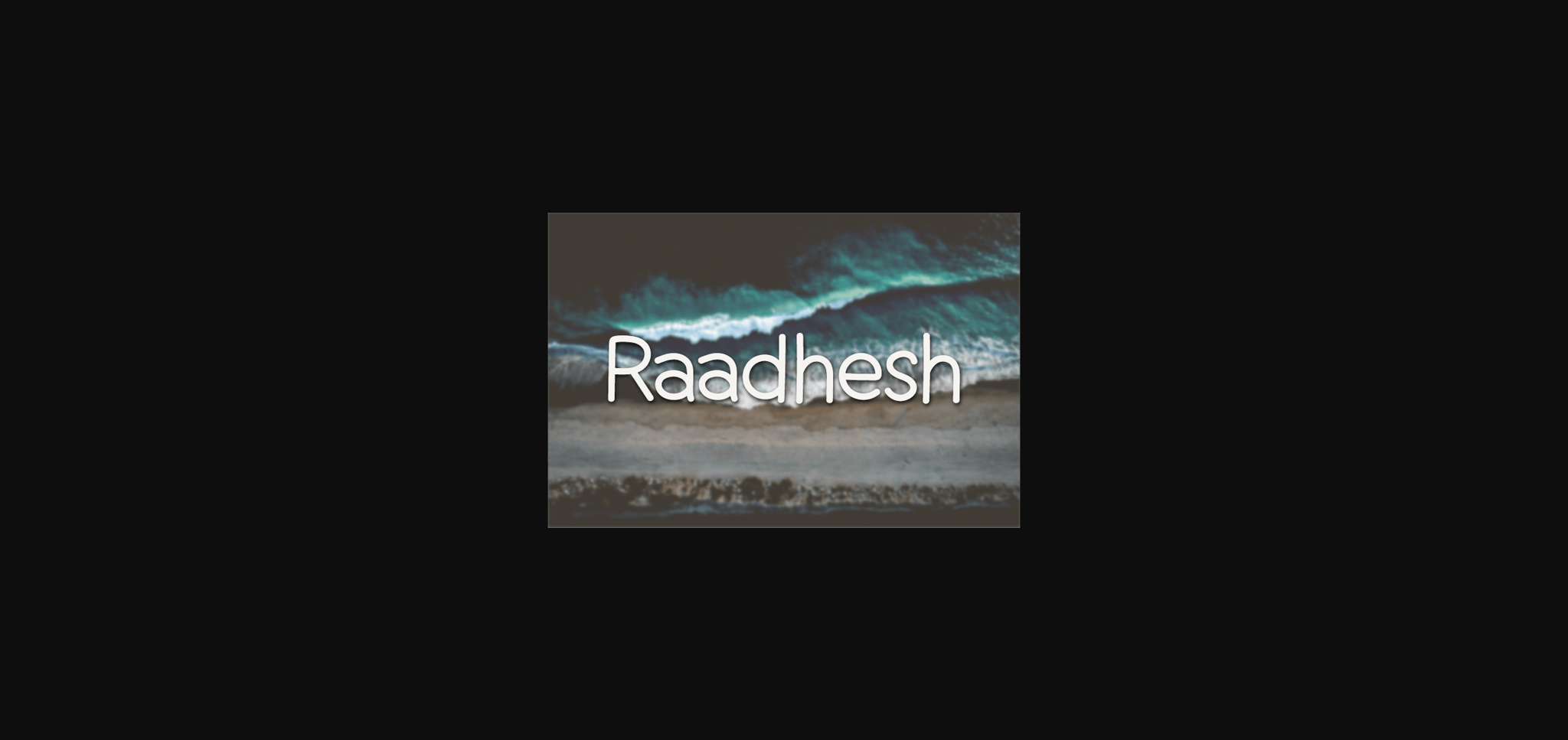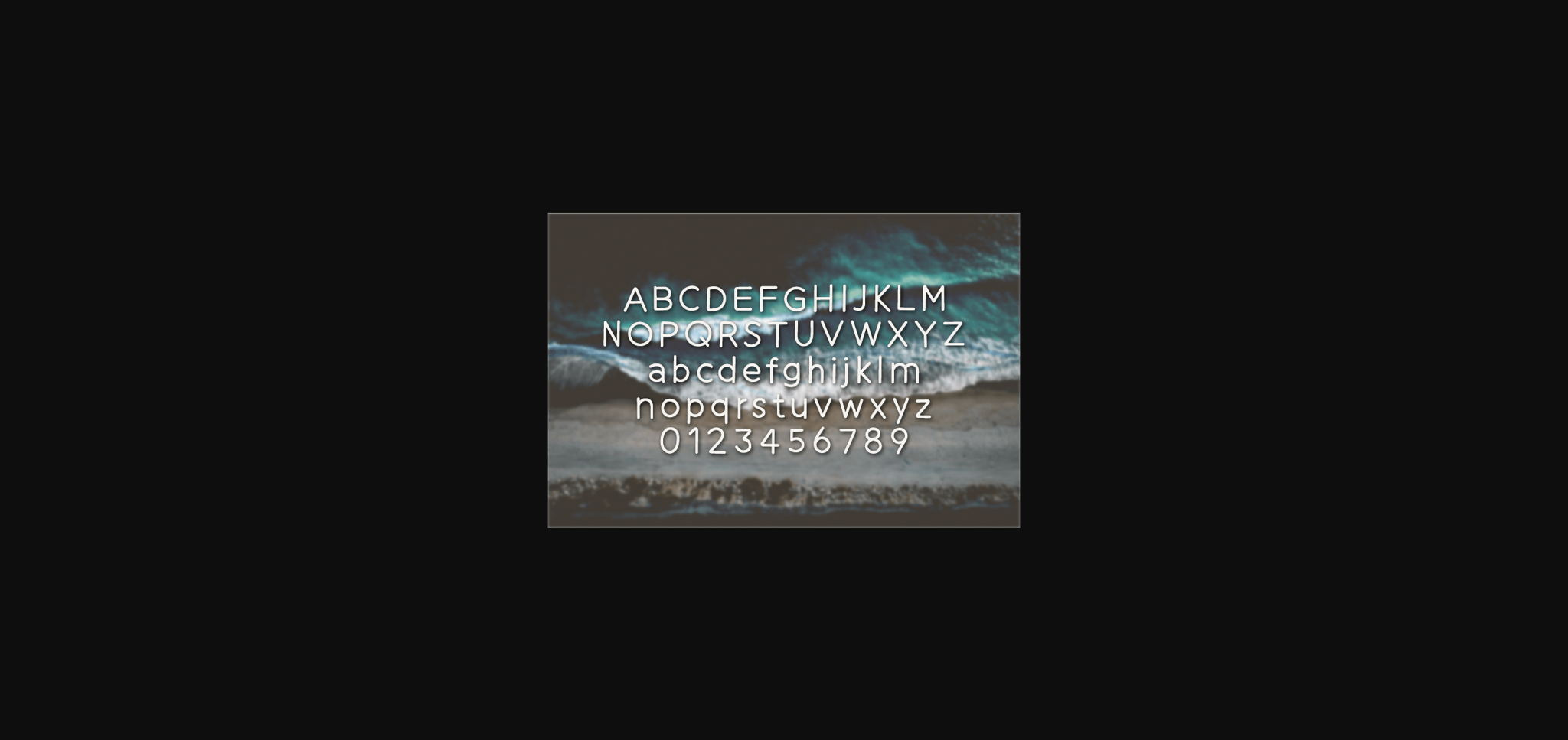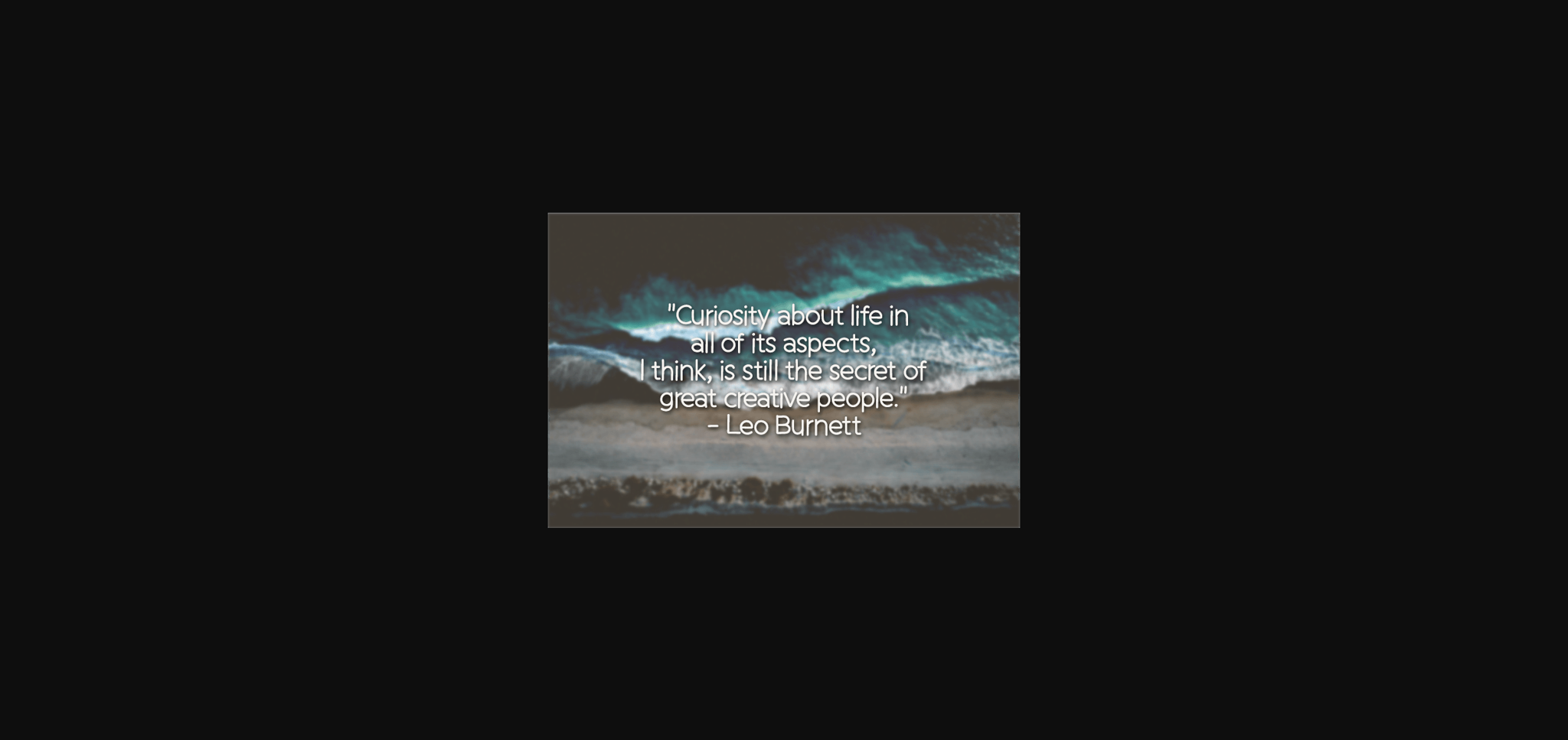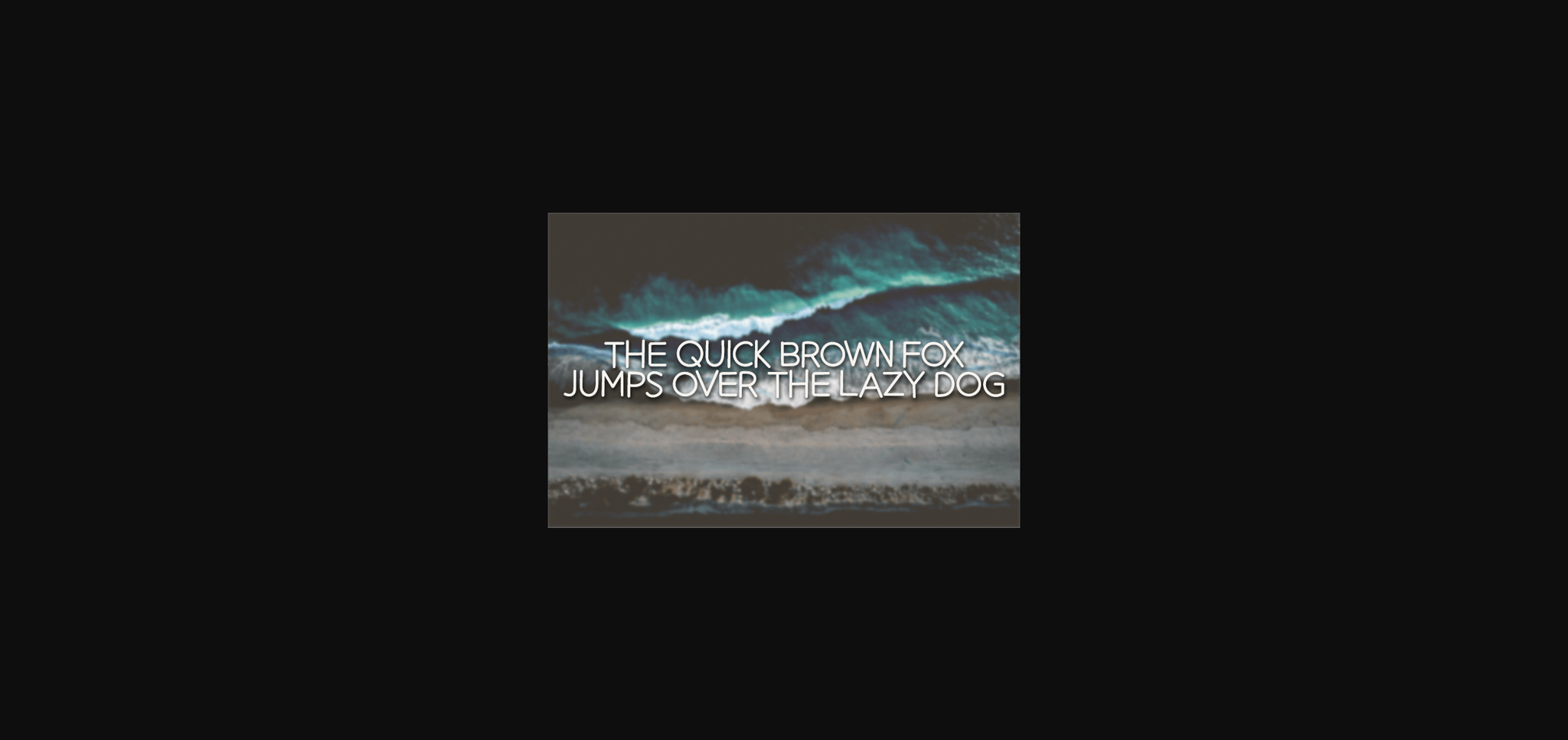
HomeSans Serif FontsRaadhesh Font Sans Serif Fonts Raadhesh Font FacebookXPinterestWhatsApp 1 of 6 ... Raadhesh Font Poster 2... Raadhesh Font Poster 3... Raadhesh Font Poster 4... Raadhesh Font Poster 5... Raadhesh Font Poster 6... About Raadhesh Font Raadhesh is a natural sans serif font without changing a single node in each character’s indentation, this makes this font very interesting and unique. Perfect for quotes, notes, tees, and any product design. DOWNLOAD NOW People also explored Magenta Font Virgi Theory Font Katty Wells Signature Font Nextrue Font Haboro Sans Sunday Chill Font Spagbowl Font Oleandro Modern Calligraphy Font Gilliany Font 625 0 TagsRaadhesh Font Previous articleAndromeda FontNext articleQauthor Font LEAVE A REPLY Cancel reply Comment: Please enter your comment! Name:* Please enter your name here Email:* You have entered an incorrect email address! Please enter your email address here Website: Save my name, email, and website in this browser for the next time I comment. Personal Use Free Banana Valentine Personal Use Free Read more about this font Shelly Personal Use Free Read more about this font Nugo Sans Personal Use Free Read more about this font Genres Personal Use Free Read more about this font BLOG Using Fonts in Digital Marketing: Tips to Strengthen Your Brand Identity In the realm of digital marketing, every visual element plays a crucial role in shaping a brand's identity, and fonts are no exception. The... Fonts That Capture the Spirit of New York City To increase your work productivity, choose the most readable fonts. Free vs Paid Fonts: Why Investing in Premium Fonts Is Worth It